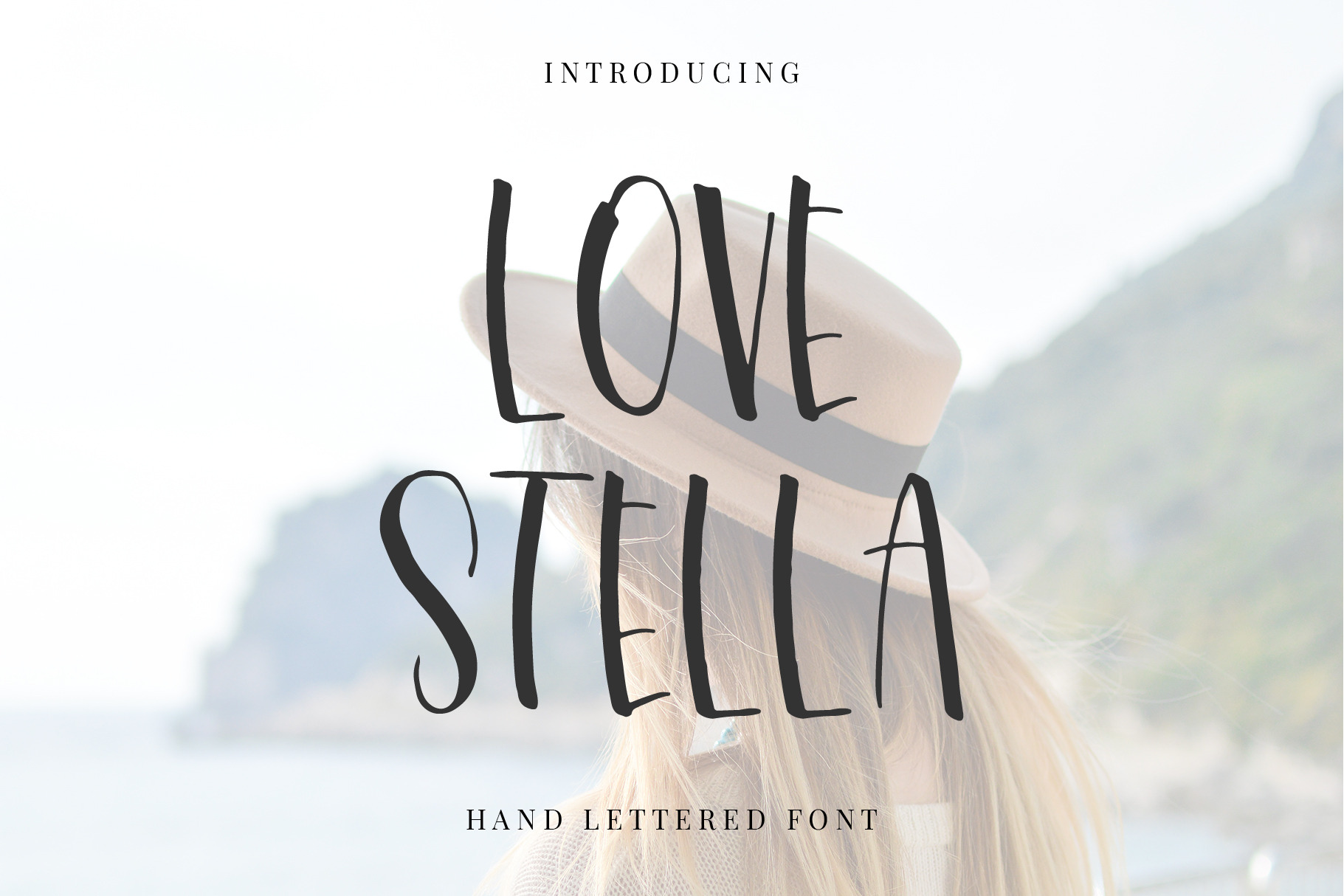
Love Stella Lettering Font
Love Stella is a hand crafted display font that'll boost your social media. This is an all-caps font with alternatives that are easily available through upper and lowercase. The font is great for invitations, greeting cards, branding, logos, magazine layout, prints and posters.